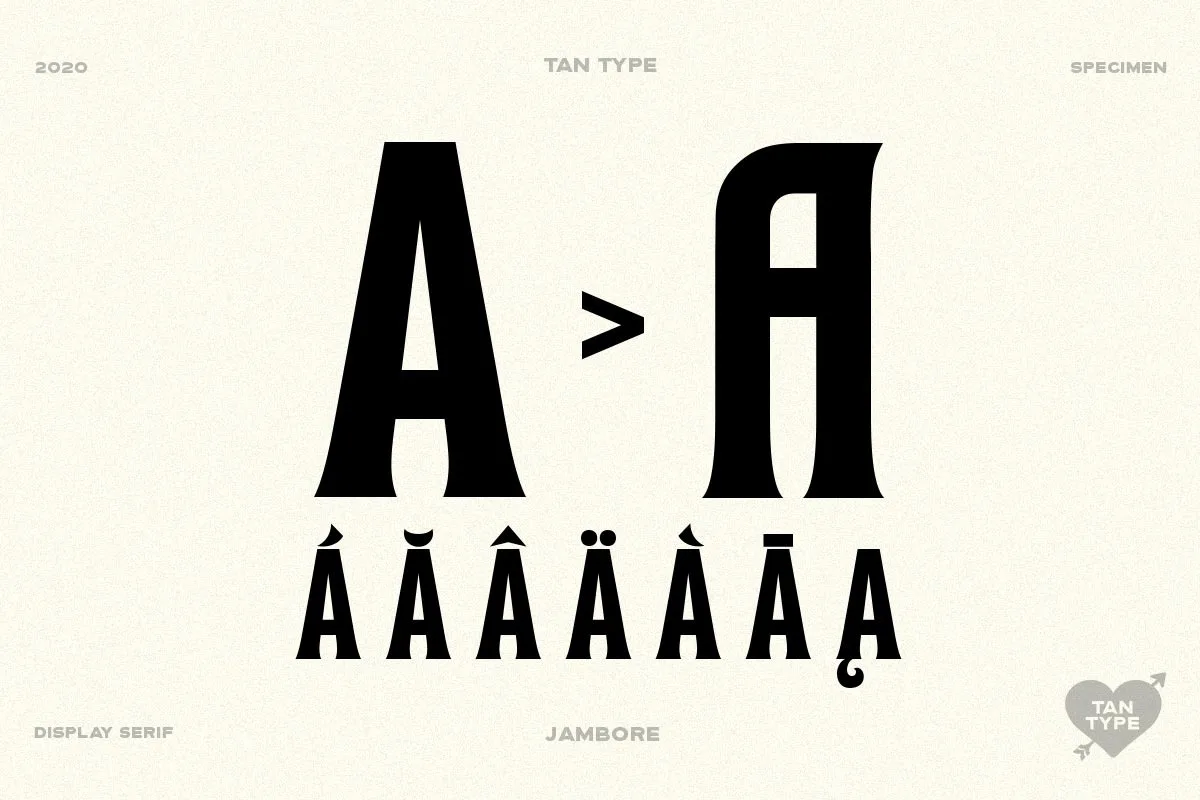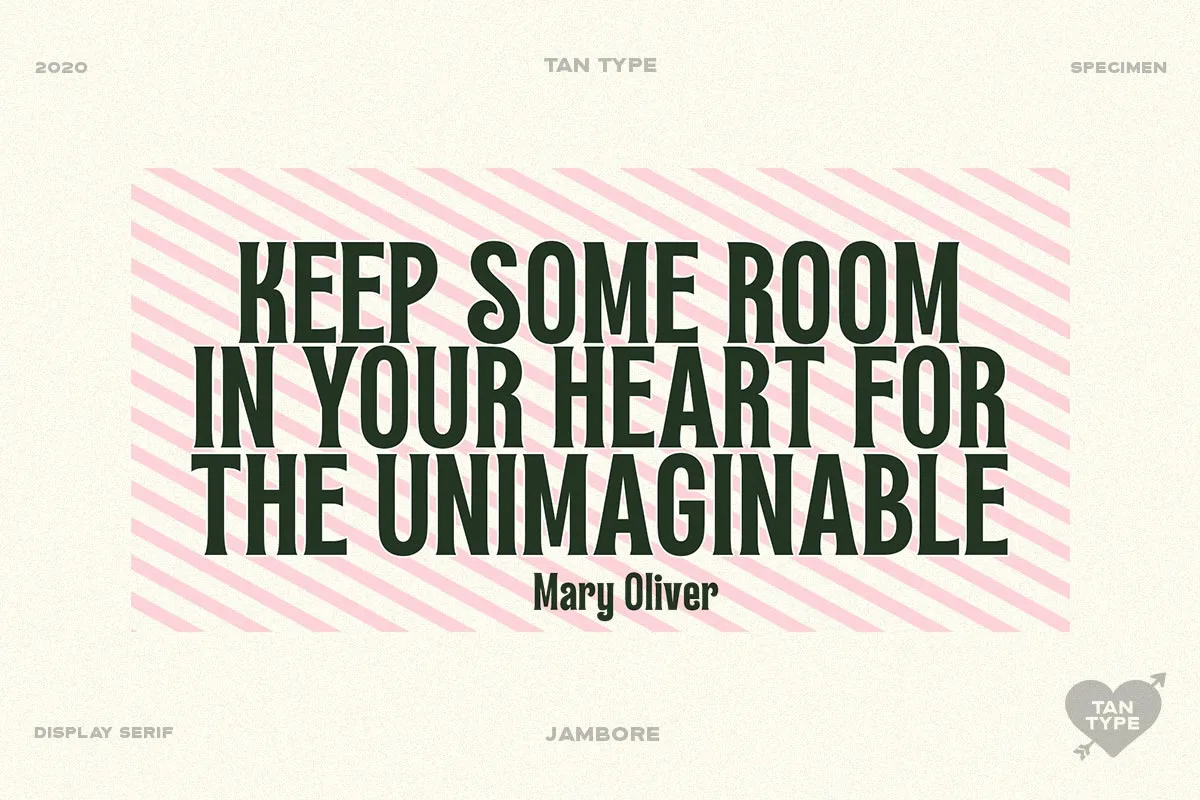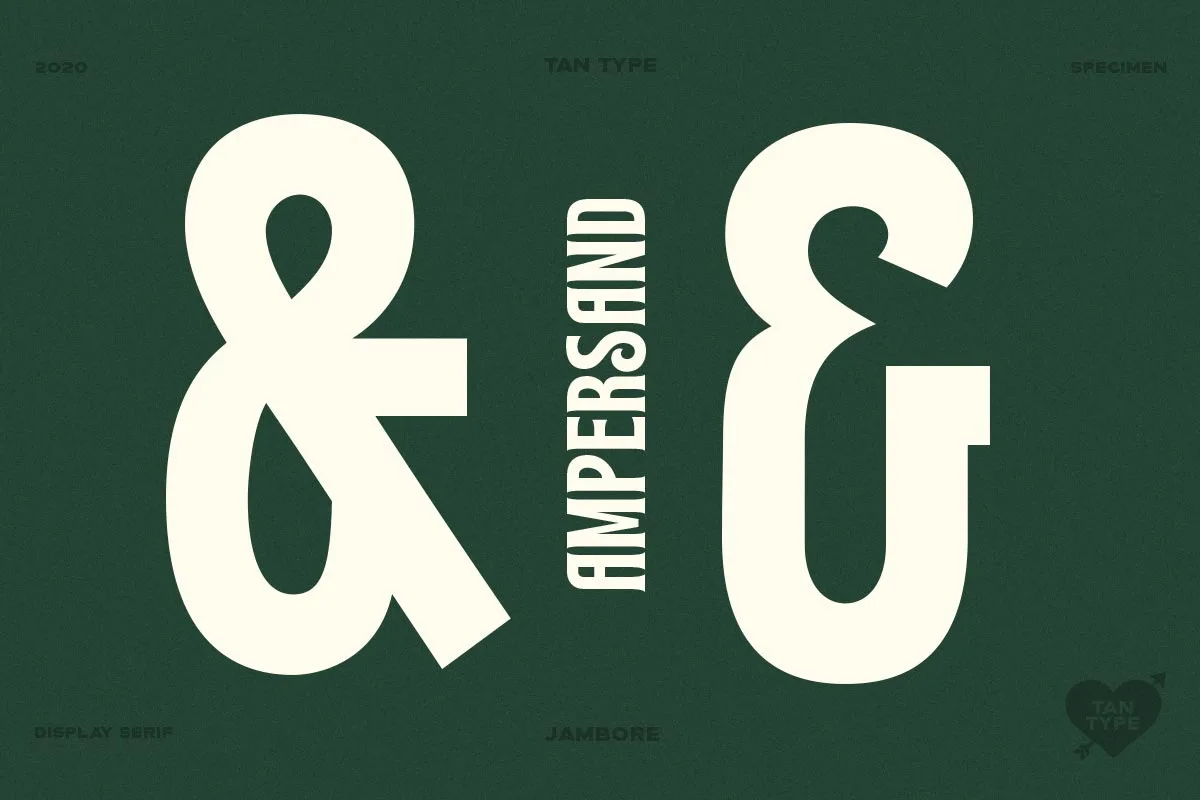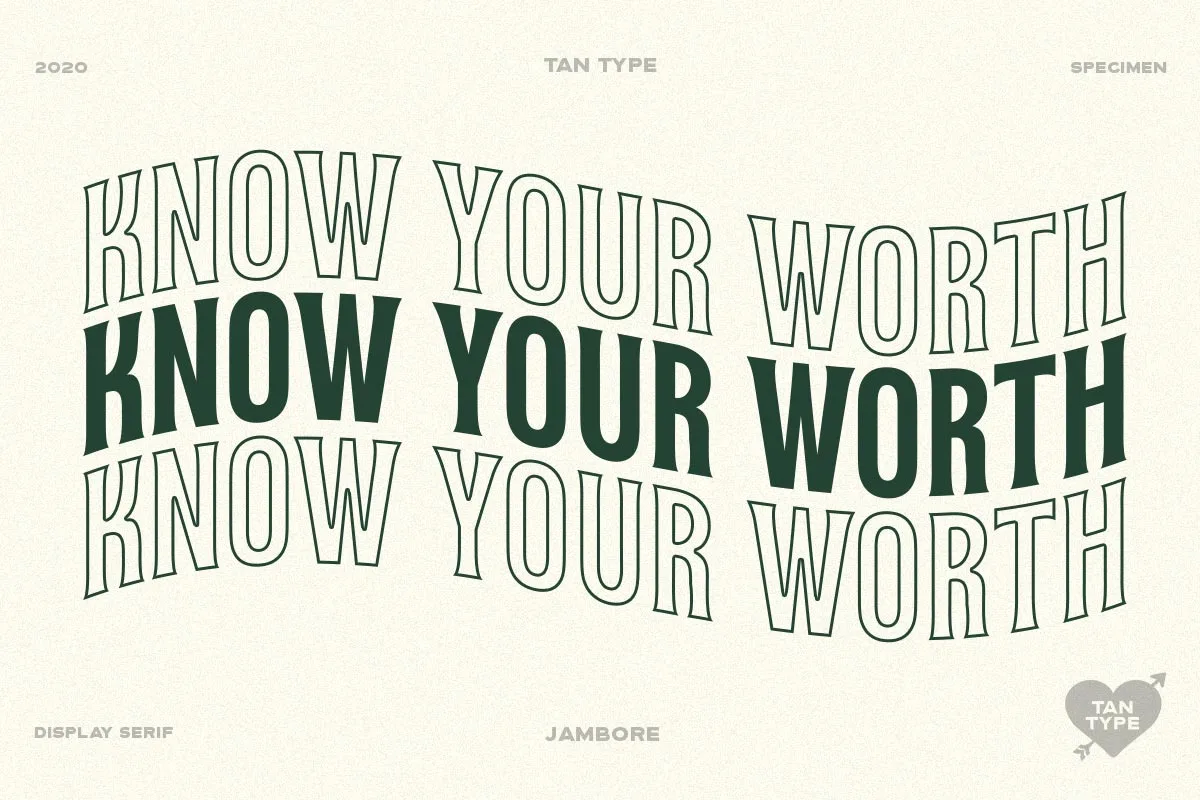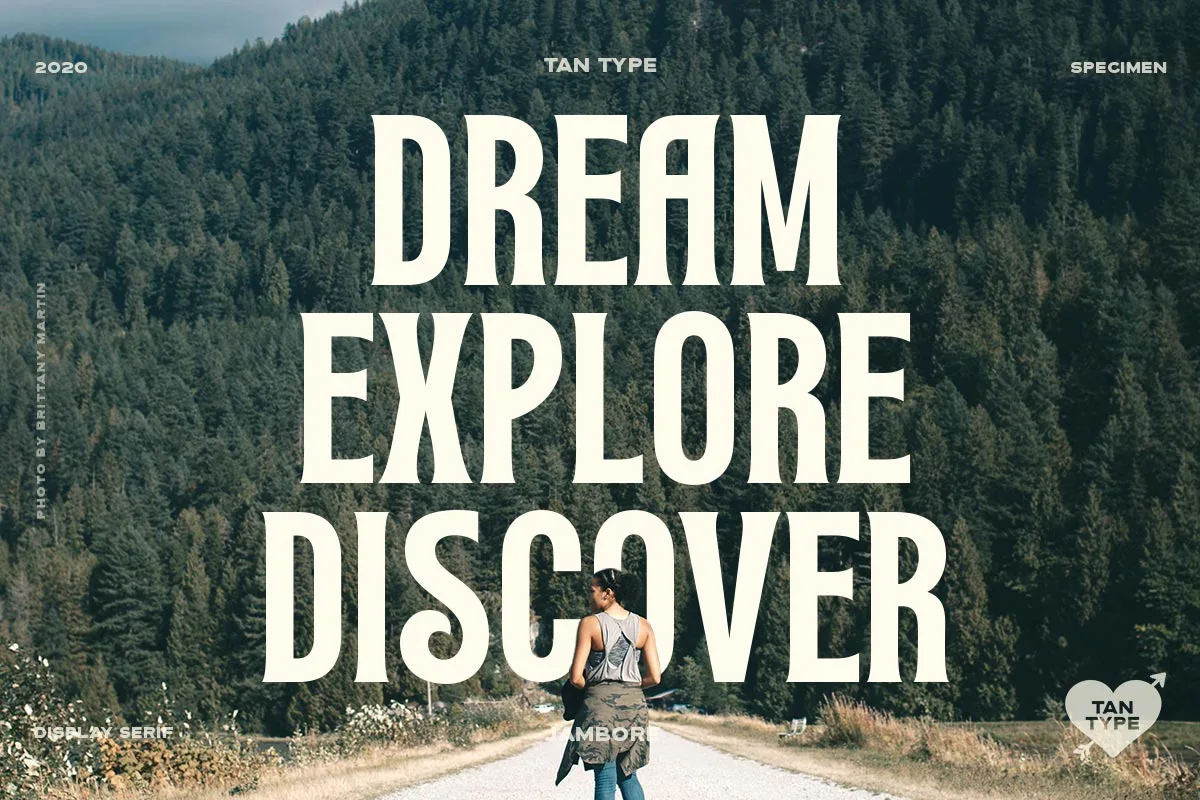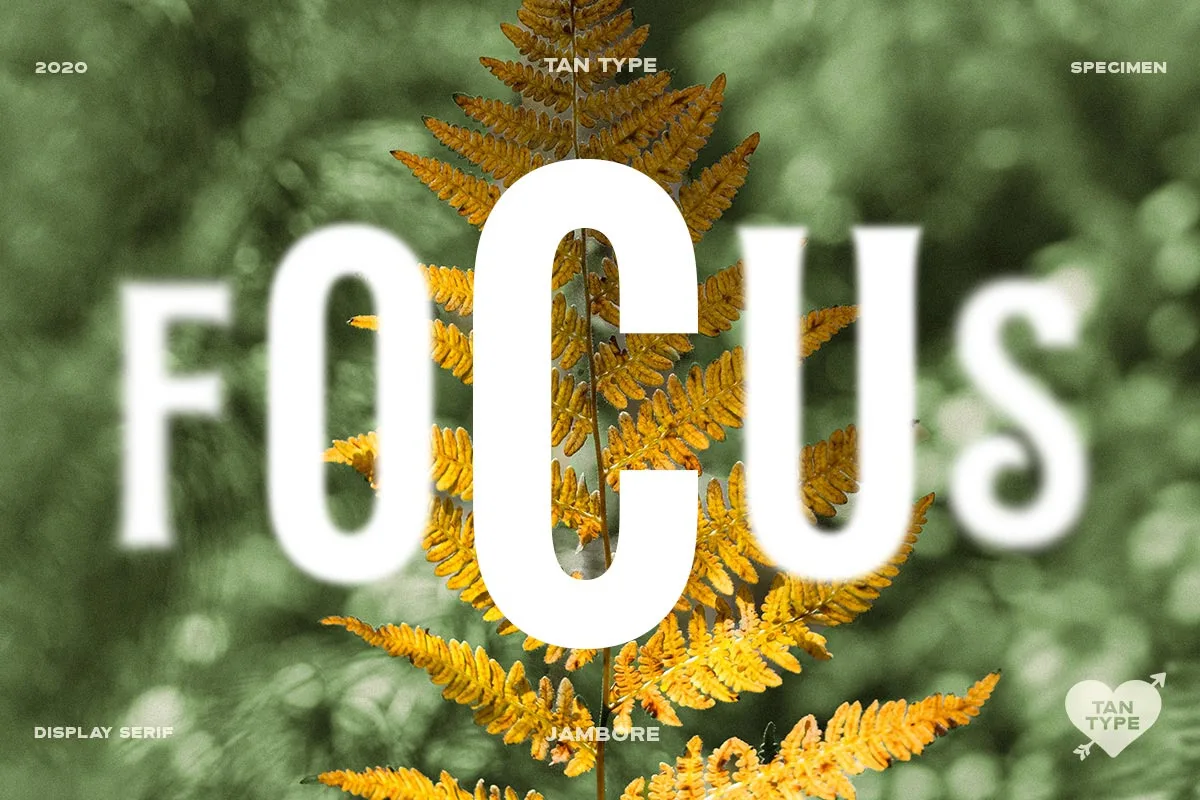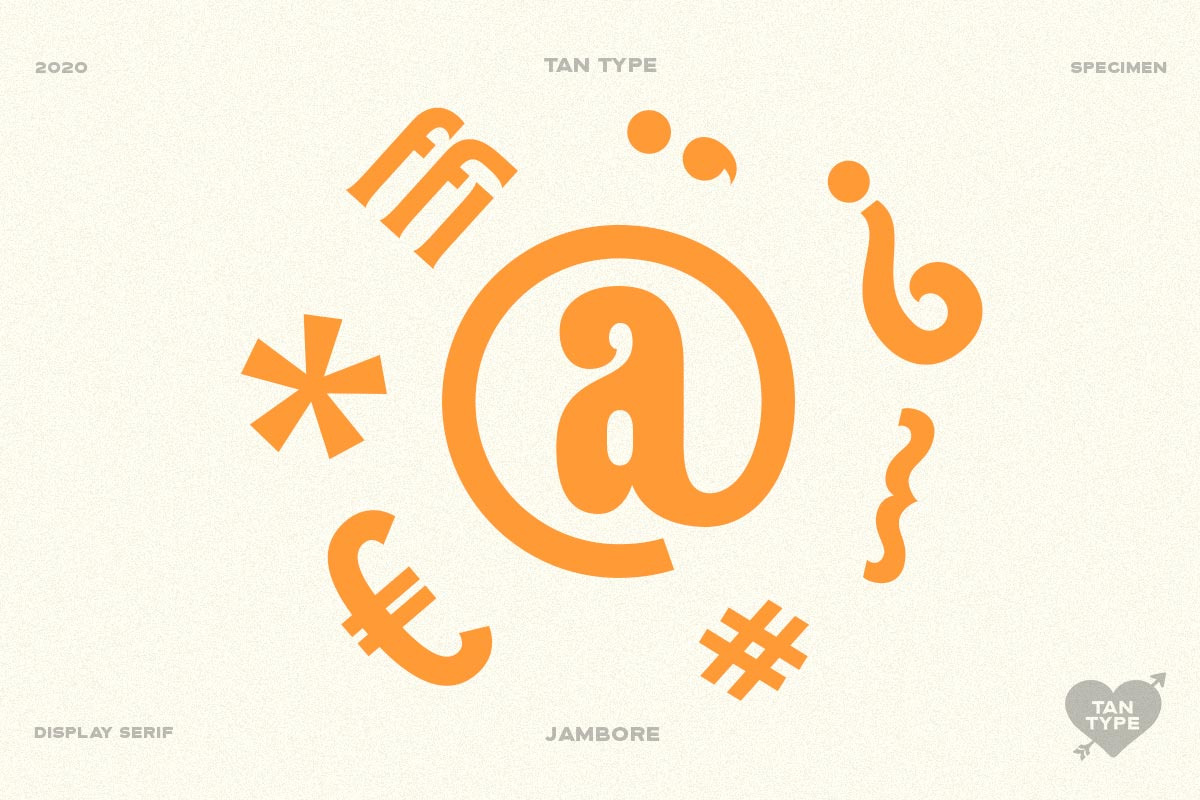
Tan Jambore is a bold display serif font. Conventional with a flair. It has the right dose of retro vibes and is perfect for headlines, branding purposes, book covers, ads, etc.